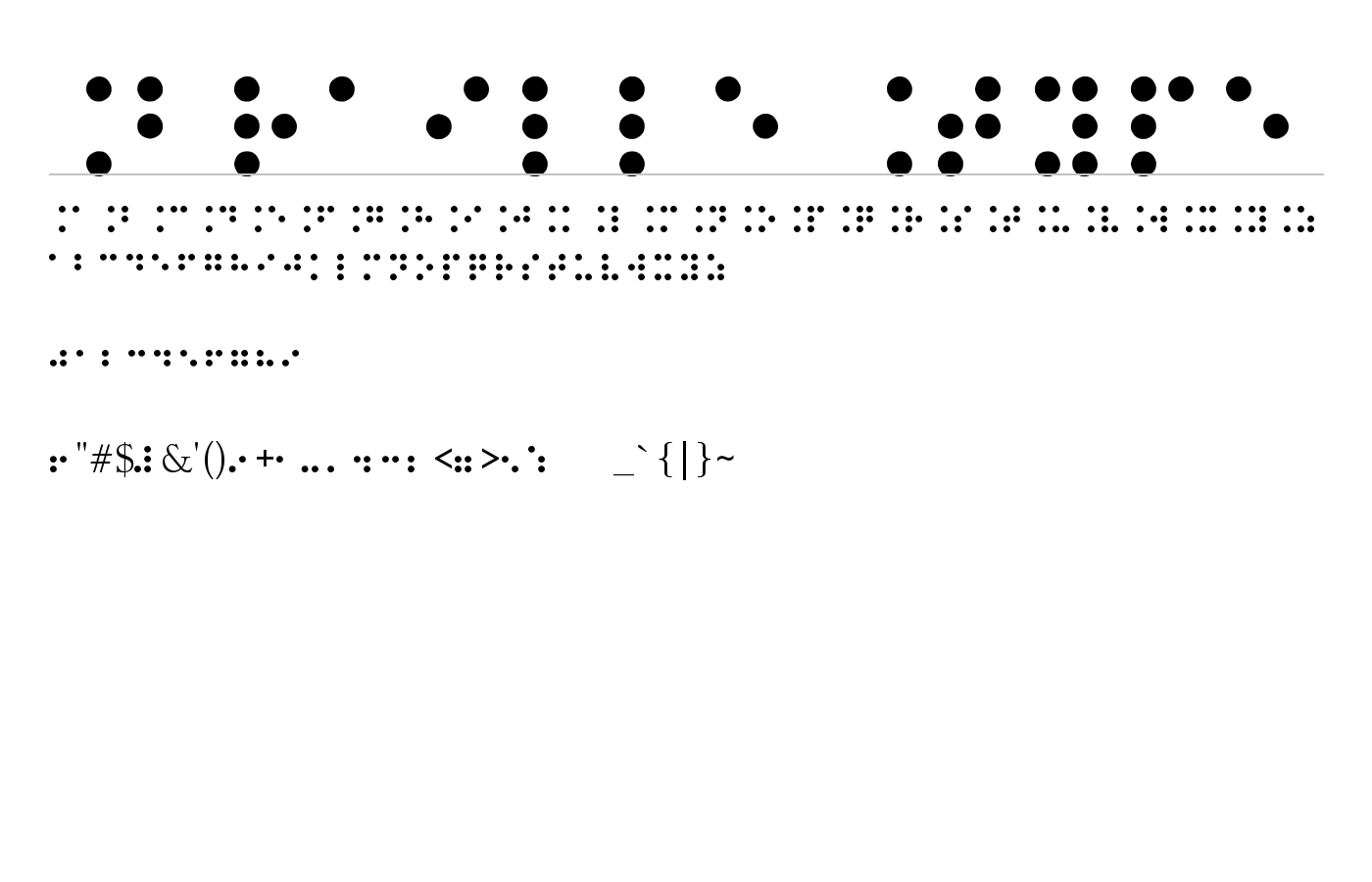
Braille Type Font is a unique sans serif display font that translates traditional braille dots into a clean, modern typographic form. With a consistent weight and simple round dot shapes spaced evenly, it conveys clarity and accessibility, making it ideal for educational, inclusive design, and awareness campaigns. Its minimalist and tactile-inspired look works well in creative logos, posters, or any project aiming to highlight communication and inclusivity.
Braille Type Font